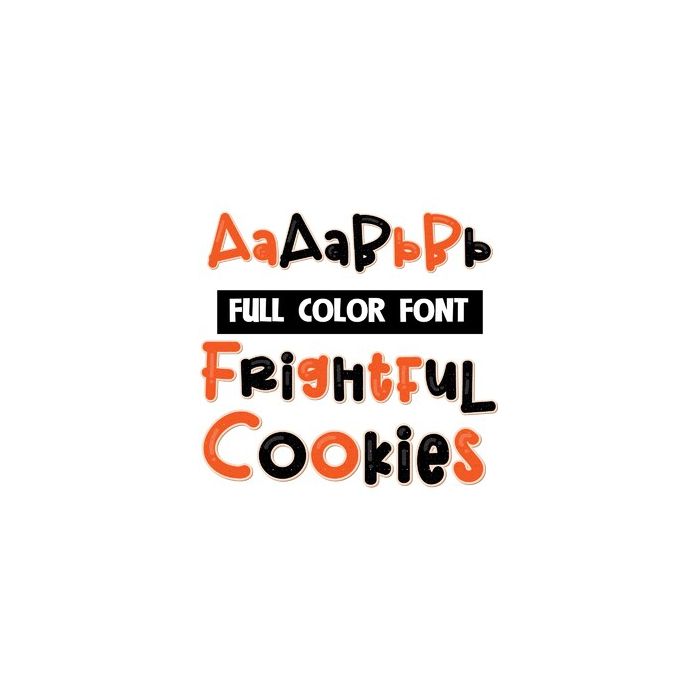
This full-color font features black and orange sugar cookies. There is an alt case in secondary colors you can access through your system or Silhouette's glyph map.